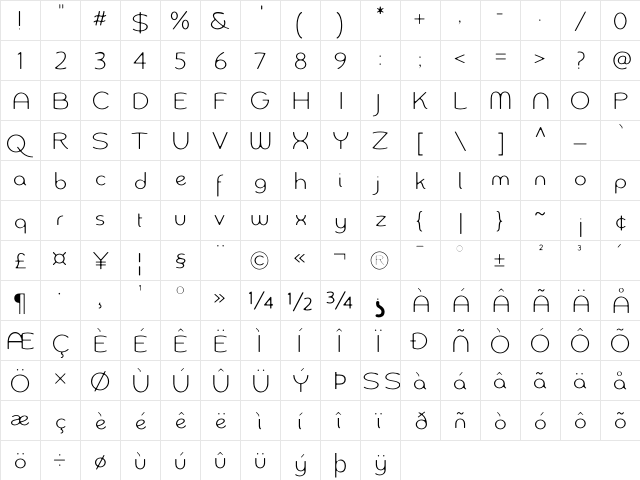
Chenna Regula
Design Context for Chenna Typeface
Chenna offers clean, dependable letterforms without strong stylistic allegiance, making it a practical choice for designers who need flexibility.
Pro Tip: Pair Chenna with a font of contrasting weight or personality to build a more expressive typographic hierarchy.